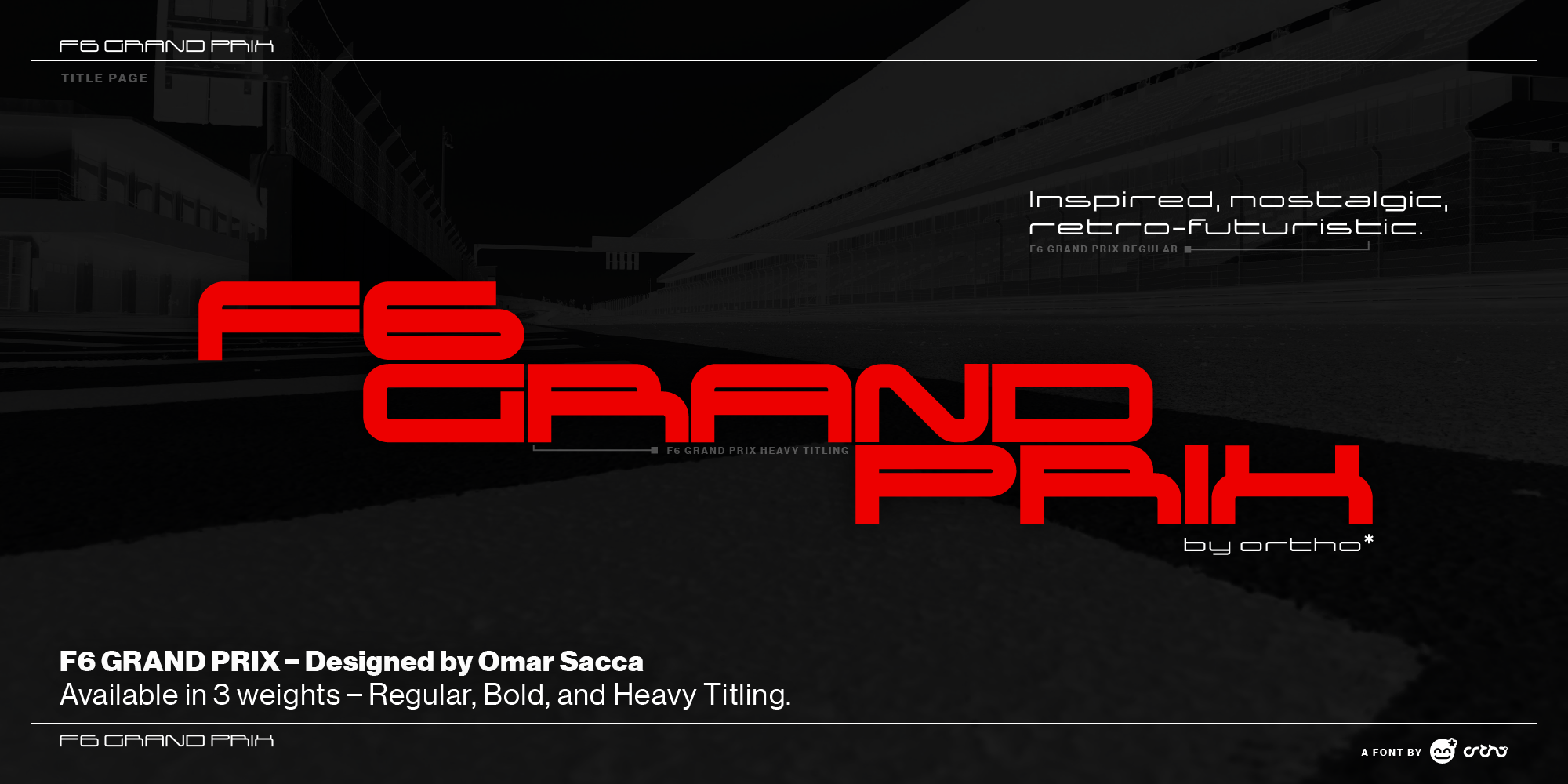
F6 Grand Prix Font is perfect for racing team logos, automotive branding, motorsports marketing, speed-focused advertising, racing event posters, performance car dealerships, adrenaline sports promotions, high-octane product packaging, racing magazine headlines, and competitive sports branding. This high-velocity typeface excels in projects that require speed, precision, and championship-level performance appeal.
What makes F6 Grand Prix Font exciting is its electrifying ability to capture the heart-pounding intensity of Formula racing through letterforms that seem to accelerate across the page with championship-winning velocity and aerodynamic precision. The font features streamlined angles, racing-inspired curves, and performance-optimized character flow that create immediate association with professional motorsports and elite competition. Its championship character captures the essence of podium-worthy excellence while maintaining crystal-clear legibility at racing speeds, making it perfect for brands that want to communicate peak performance, winning spirit, and uncompromising quality.
F6 Grand Prix Font comes in comprehensive font families including Regular, Bold, Black, Italic, Turbo, and Championship variants. Each family member maintains the distinctive racing character while offering different speed intensities and performance levels to accommodate various motorsports design needs and competitive branding requirements.
This premium racing typeface represents an outstanding choice for designers working in automotive, sports, and high-performance industries. F6 Grand Prix Font Free Download provides exceptional value for racing organizations, automotive companies, and creative agencies specializing in speed-focused visual communication. The font's championship appeal makes it particularly suitable for racing merchandise, automotive advertising, performance product marketing, and competitive sports promotions.
Whether you're developing brand identity for racing teams, creating marketing materials for automotive companies, or designing promotional content for high-performance products, F6 Grand Prix Font delivers the championship-winning combination of speed and precision that crosses the finish line first every time.